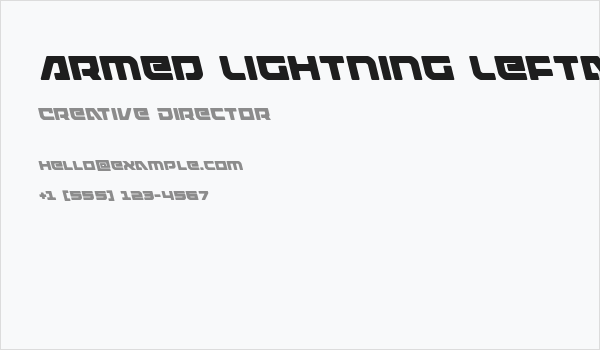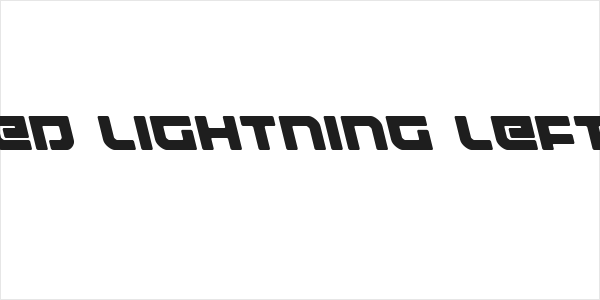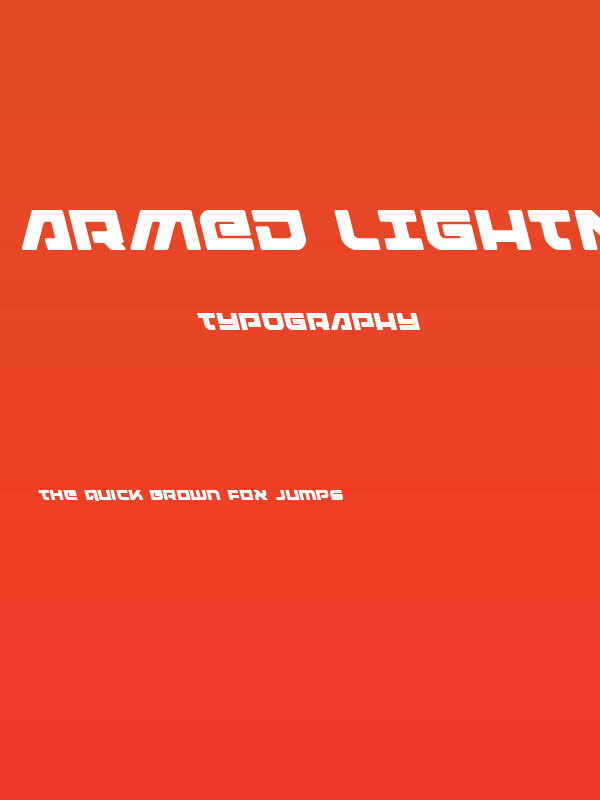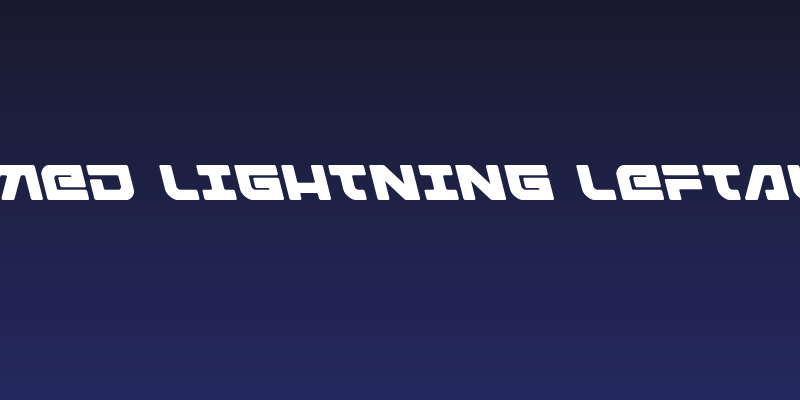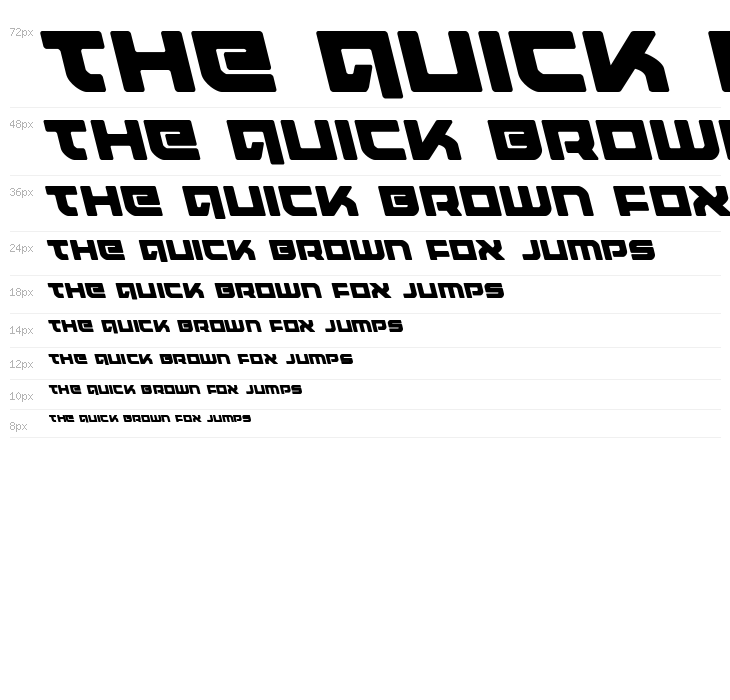
Armed Lightning Leftalic Font
Armed Lightning Leftalic Description
This font features a bold, angular design with a futuristic and dynamic appearance. The characters are constructed with thick, solid lines and sharp edges, giving them a strong, impactful presence. The style is reminiscent of digital or sci-fi themes, with a slightly condensed width that enhances its modern aesthetic. The uppercase and lowercase letters maintain a consistent geometric form, while the numbers and special characters follow the same bold and structured design. The overall look is cohesive and visually striking, making it ideal for projects that require a bold statement.
| Proposed Projects | Ideal for sci-fi themed projects, video game titles, tech branding, and futuristic posters. |